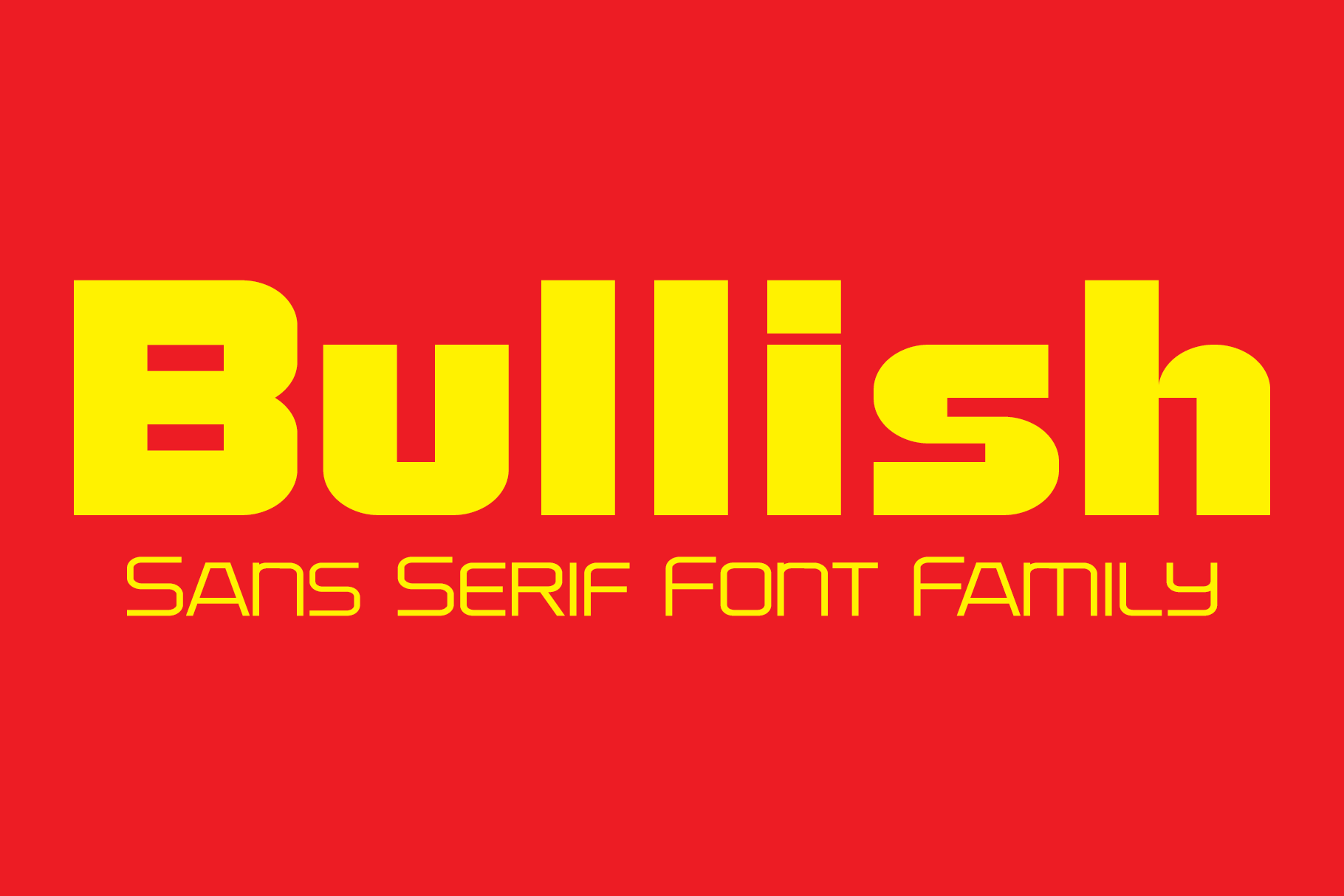
Bullish - Sans Serif Font Family
Bullish is a clean, contemporary, geometric font family. There are 12 fonts in the Bullish family, Light, Medium and Bold. Each with a lower case, small caps, lower case oblique and small caps oblique. The small caps versions have small caps in place of the lower case alphabets. The lower case and small caps versions have the same uppercase alphabet, numbers, punctuation, symbols and miscellaneous characters. The Bullish fonts are ideal for headlines, titles, branding, small blocks of text or wherever a fresh font is desirable.